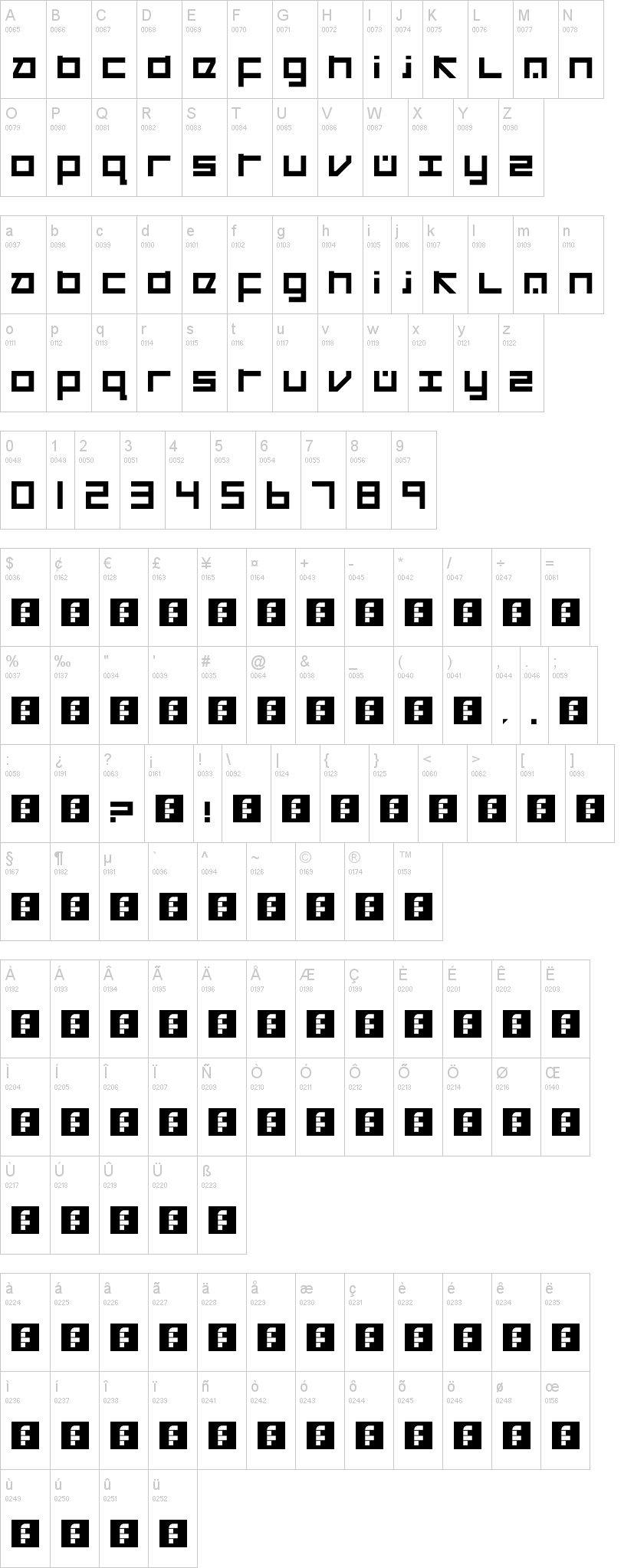
Шрифт Cancranacancarnaca
"Cancranacancarnaca
Pronounced
Can-Cran-A-Can-Carn-Aca.
Basically, this is the Zeta II I was talking about, but again modified; now it looks different. It's squared, but with strange dimensions, and is much more fluid than my other squared fonts. Enjoy all!"
Made in 2010.